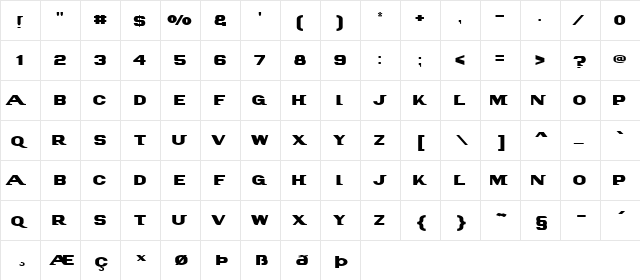
PanAm LogoText Regular
Design Context for PanAm LogoText Typeface
PanAm LogoText is a composed and adaptable typeface that performs quietly and consistently across a wide range of design contexts.